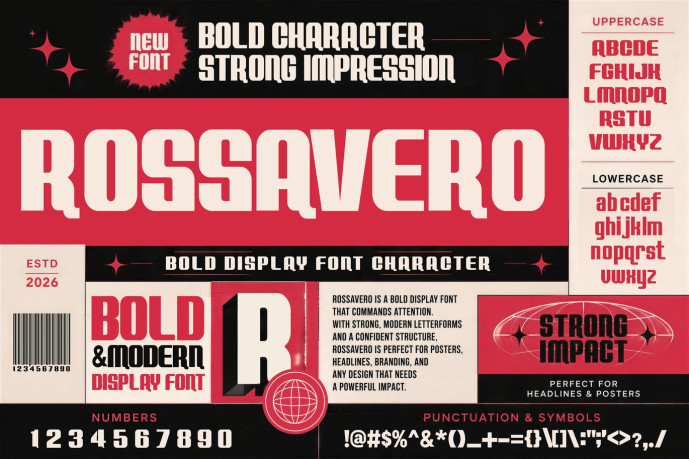
Rossavero – Bold Display Font
Designer: Pitchlook
Rossavero is a bold display font designed to deliver maximum visual impact. Featuring strong geometric letterforms, condensed proportions, and unique character details, this typeface is perfect for creating eye-catching headlines and powerful branding. its modern industrial style makes it an excellent choice for posters, logos, packaging, sports branding, social media graphics, YouTube thumbnails, editorial layouts, and any project that demands a bold visual presence.
Font Features
Uppercase & Lowercase
Numbers & Punctuation
Multilingual Support
Ligature Ready